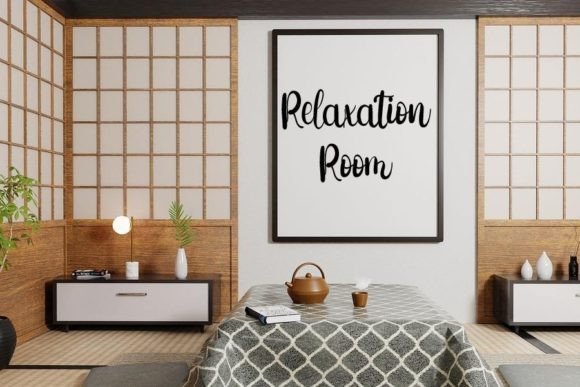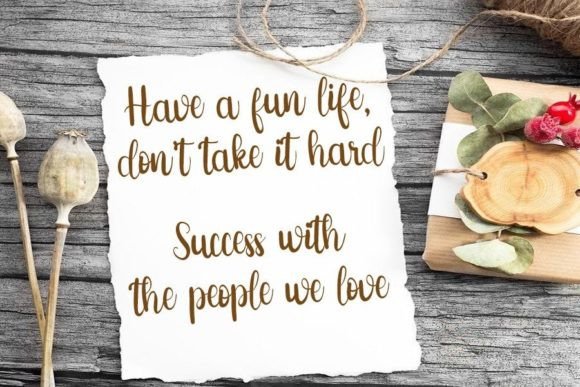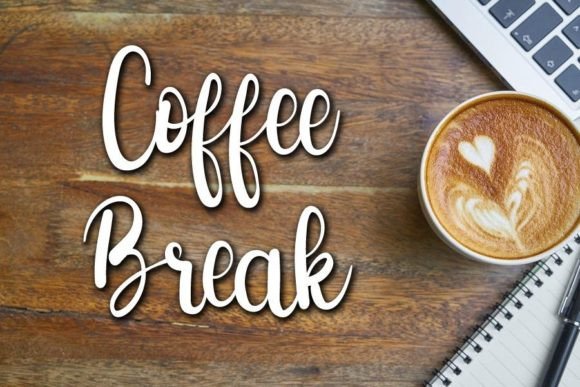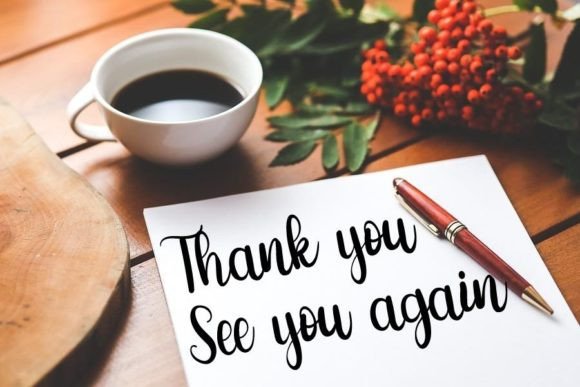
Introducing Brother Font: Elevate Your Designs with a Fresh and Beautiful Typeface
In the world of design, the right font can make all the difference. It can elevate your project from ordinary to extraordinary, convey the tone and personality of your brand, and leave a lasting impression on your audience. If you’re a designer, crafter, or business owner looking for a font that can help you take your designs to the next level, look no further than Brother Font. This fresh and beautiful font is perfect for a wide range of design purposes, from YouTube banners and cover logo mockups to wedding invitations, ID cards, flyers, and crafts.
What Makes Brother Font So Special?
Brother Font is more than just a pretty face. Its unique and simple design makes it incredibly versatile, allowing you to use it in a variety of contexts and applications. Here are just a few reasons why Brother Font stands out:
- Fresh and Beautiful Design: Brother Font boasts a modern and elegant design that’s sure to turn heads. Its clean lines, subtle curves, and balanced proportions make it a joy to look at and work with.
- Highly Versatile: Whether you’re designing a YouTube banner, a wedding invitation, or a flyer, Brother Font is up to the task. Its flexibility and adaptability make it an excellent choice for a wide range of design projects.
- Simple and Unique: Brother Font’s simplicity is part of its charm. It’s easy to read, easy to work with, and easy to love. At the same time, its unique design elements set it apart from more generic fonts, making it a great way to add some personality to your designs.
How Can Brother Font Elevate Your Designs?
By using Brother Font in your designs, you can add a touch of elegance, sophistication, and style. Here are just a few ways that Brother Font can help take your designs to the next level:
- Enhance Your Brand Identity: If you’re a business owner, using Brother Font in your branding can help you establish a consistent and professional image. Its modern and elegant design makes it perfect for logos, business cards, and other marketing materials.
- Make Your Designs Stand Out: With Brother Font, you can create designs that are truly eye-catching and memorable. Whether you’re designing a YouTube banner or a flyer, Brother Font’s unique design elements will help your project stand out from the crowd.
- Simplify Your Design Process: Because Brother Font is so versatile and easy to work with, it can help simplify your design process. You can use it across multiple projects and applications, without having to worry about finding a different font that’s compatible.
Who Can Benefit from Using Brother Font?
Brother Font is perfect for anyone who needs a fresh and beautiful font for their design projects. Here are just a few examples of designers, crafters, and businesses that can benefit from using Brother Font:
- Graphic Designers: Whether you’re designing logos, brochures, or social media graphics, Brother Font is a great addition to your font library.
- Crafters and Artists: If you’re creating handmade crafts, jewelry, or art, Brother Font can add a touch of elegance and sophistication to your designs.
- Wedding Planners and Event Coordinators: Brother Font is perfect for creating beautiful wedding invitations, programs, and other event materials.
- Business Owners and Marketers: If you need a font that can help you establish a professional and consistent brand image, Brother Font is an excellent choice.
In conclusion, Brother Font is a fresh and beautiful font that’s perfect for designers, crafters, and businesses looking to elevate their designs. Its unique and simple design makes it incredibly versatile, while its modern and elegant style ensures that your projects will look professional and polished. By using Brother Font, you can add a touch of style and sophistication to your designs, simplify your design process, and make your projects stand out from the crowd. So why wait? Download Brother Font today and start taking your designs to the next level!